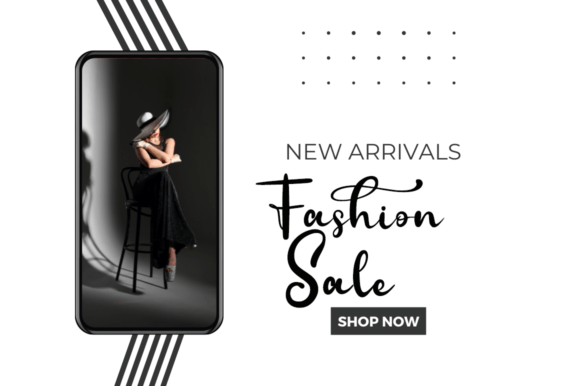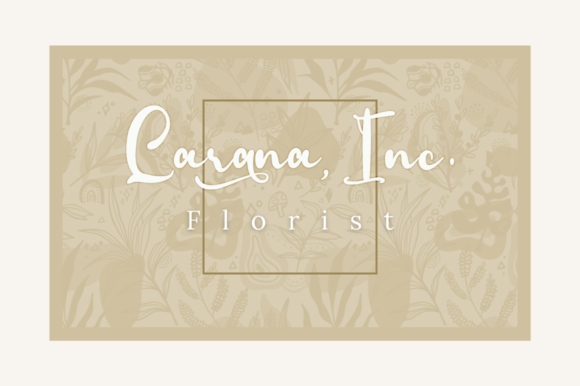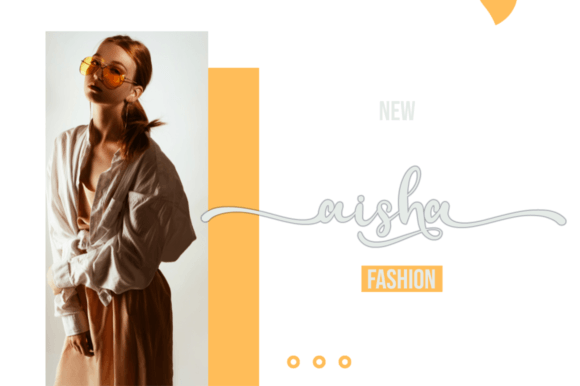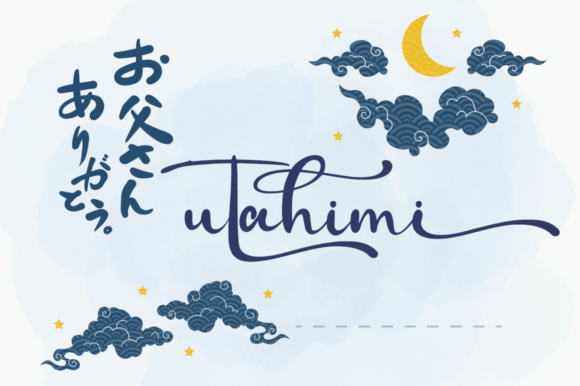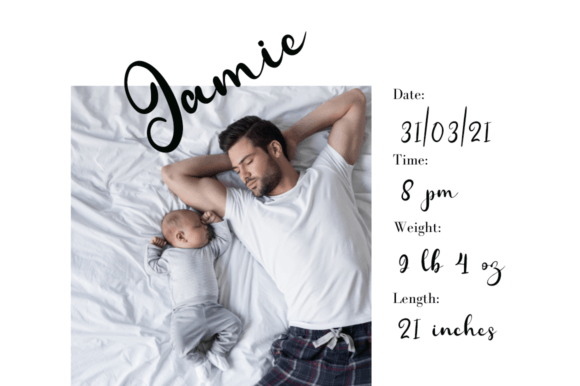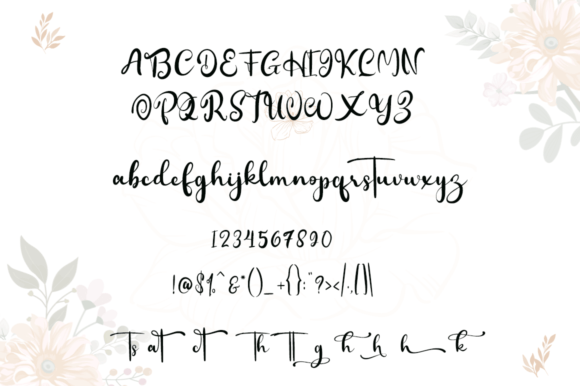
Merinata Font
About Merinata Font
Merinata exudes a captivating blend of charm and elegance, making it a versatile choice for many design applications. Its beauty shines brilliantly on wedding invitations, thank-you cards, inspirational quotes, greeting cards, logos, business cards, and any other design that benefits from a handwritten touch. Moreover, Merinata is PUA encoded. This feature grants you effortless access to an extensive array of glyphs and swashes, enhancing your design versatility.
The allure of Merinata lies in its ability to infuse a sense of refinement and sophistication into your creative projects. Its handwritten style adds a personal and romantic touch while maintaining a polished and professional appearance. This quality is particularly well-suited for wedding invitations and other formal event materials.
Enhancing Cards
Thank-you cards and greeting cards gain an extra layer of elegance and charm when adorned with the Merinata font. Its graceful letterforms enhance the heartfelt messages you convey. As a result, it leaves a lasting impression on recipients.
Branding and Logos
For branding and logos, Merinata is a valuable asset. It imparts a sense of authenticity and uniqueness to your visual identity. This makes your business stand out with its handwritten charm.
Typography Customization
In the realm of typography, Merinata offers an array of swashes and glyphs that allow for creative customization. These additional design elements make it ideal for projects where you want to experiment and create distinct typographic treatments.
In conclusion, Merinata is more than just a font; it’s a design companion that adds an enchanting and elegant touch to your projects. Its versatility, combined with its PUA encoding, makes it an invaluable tool for designers and creators looking to make their work shine with sophistication and charm. So, let Merinata be the radiant choice for your next creative endeavor. Every letter and flourish brings a sense of refinement and beauty to your designs.